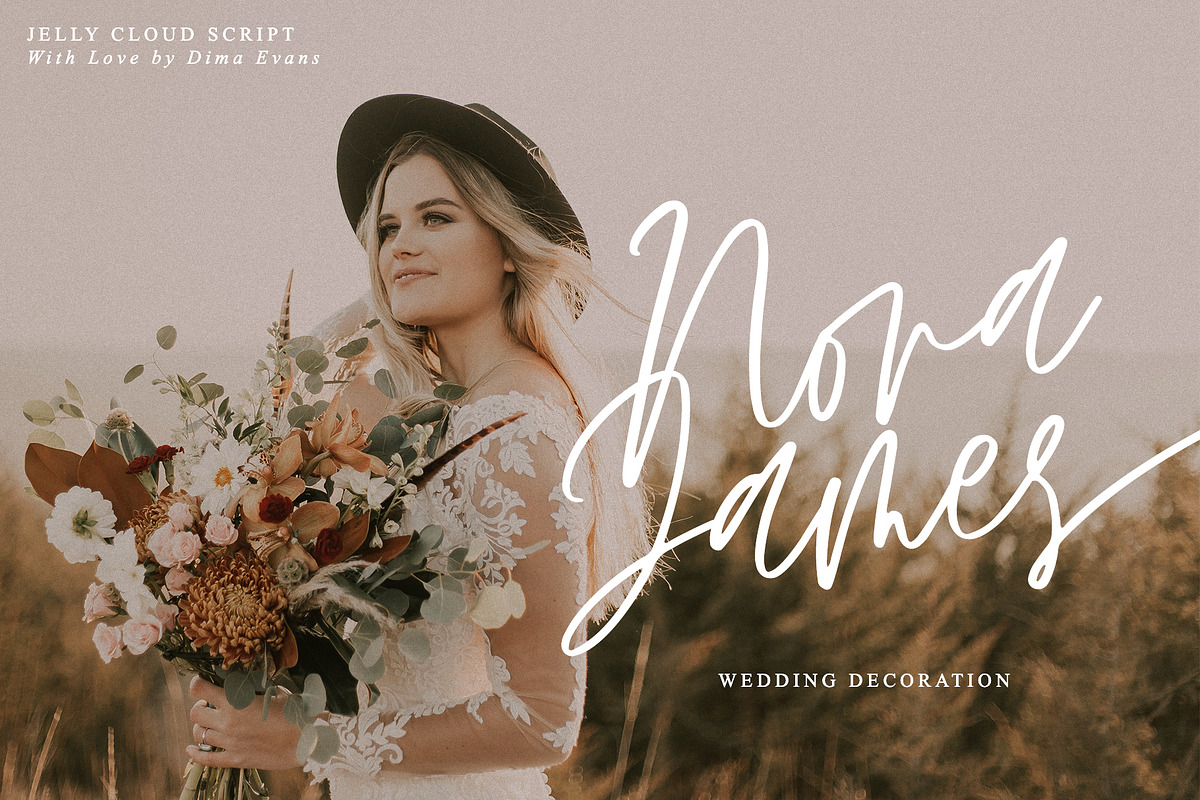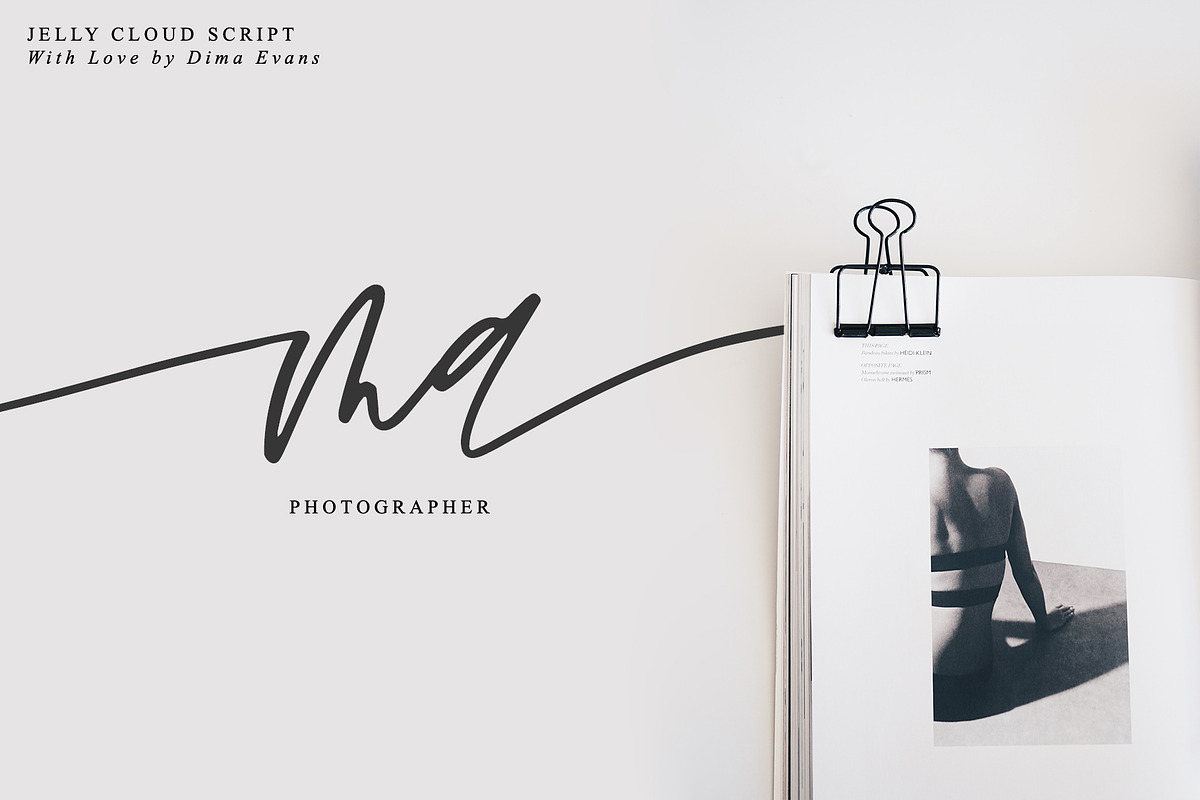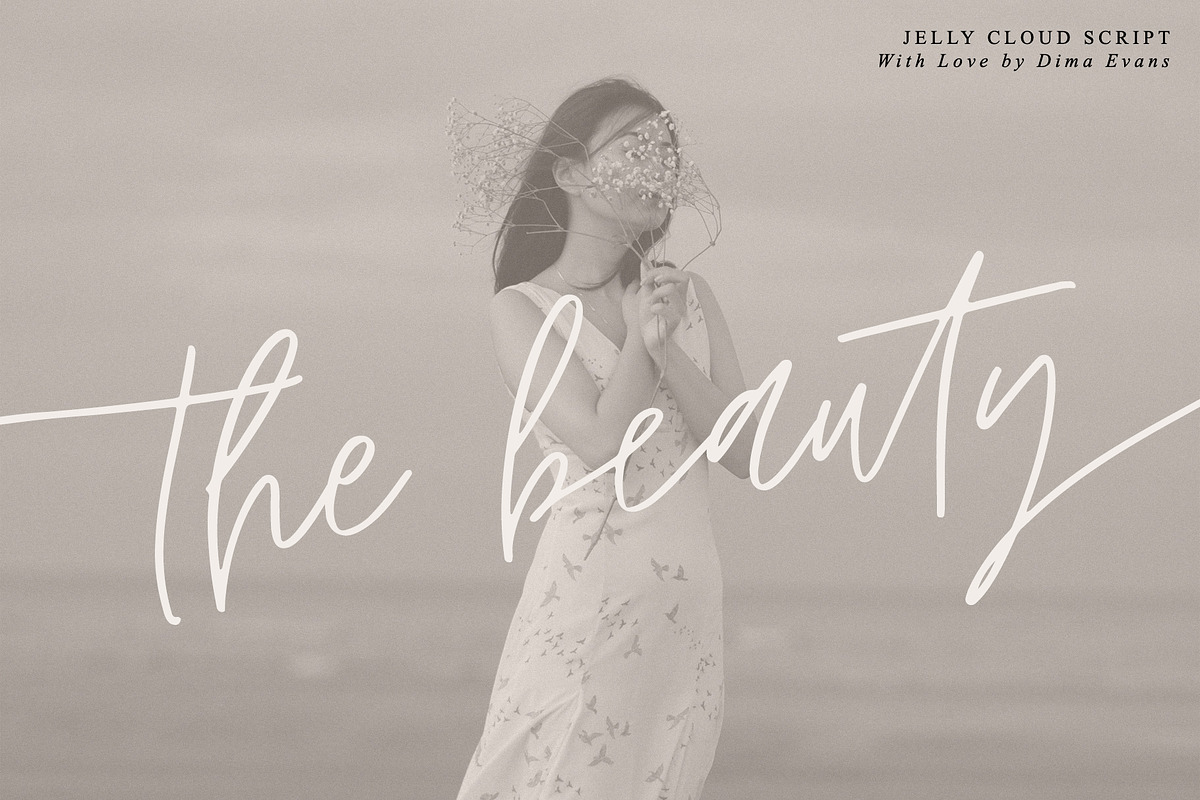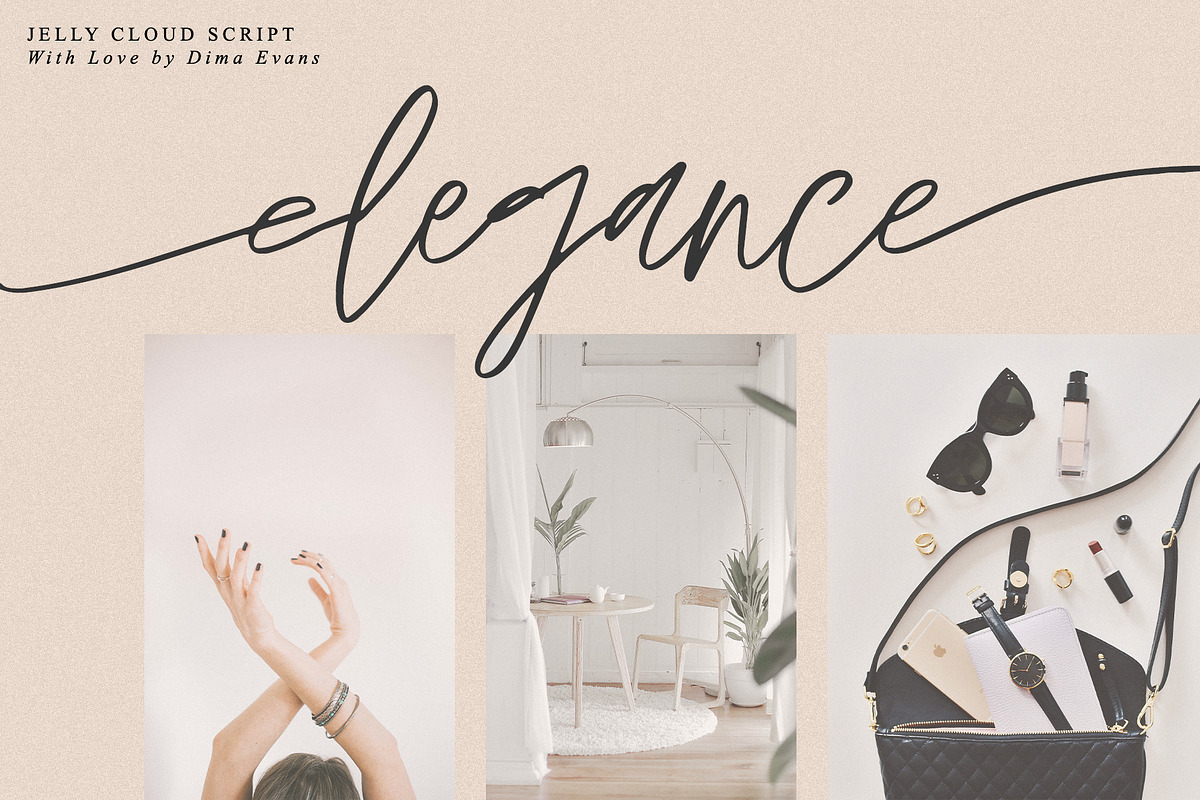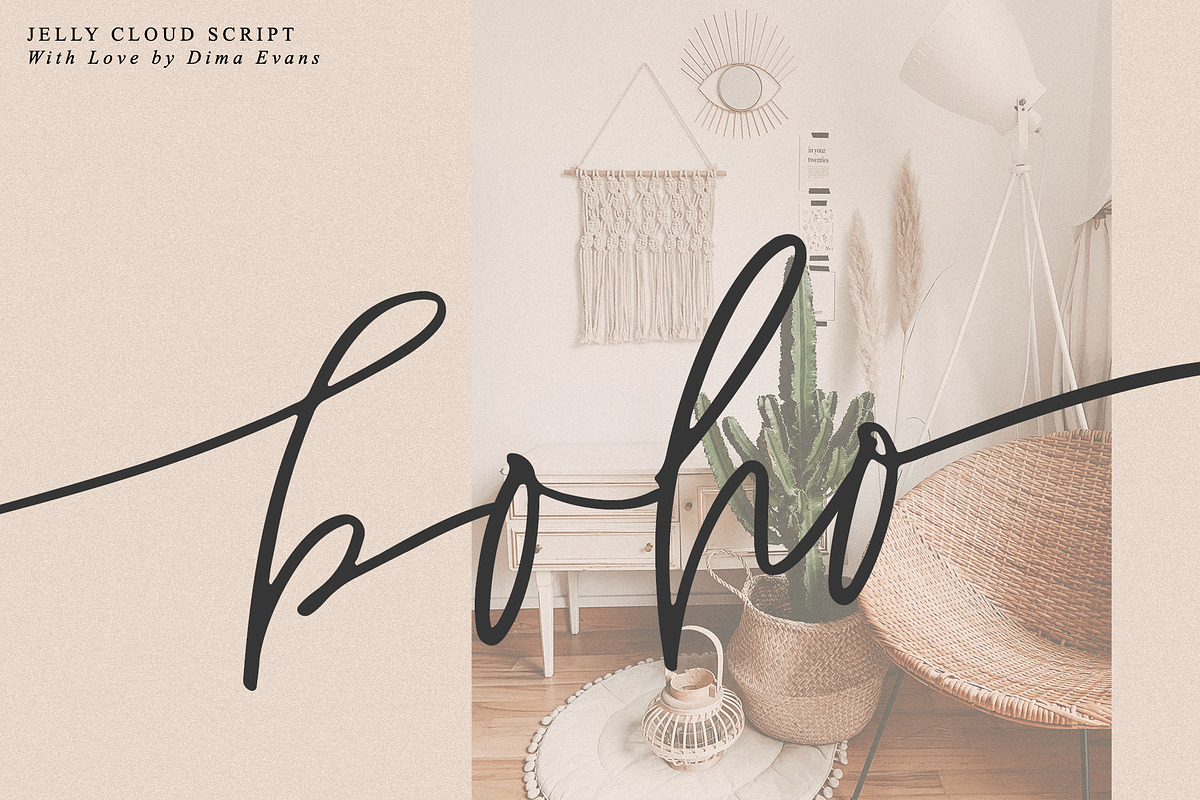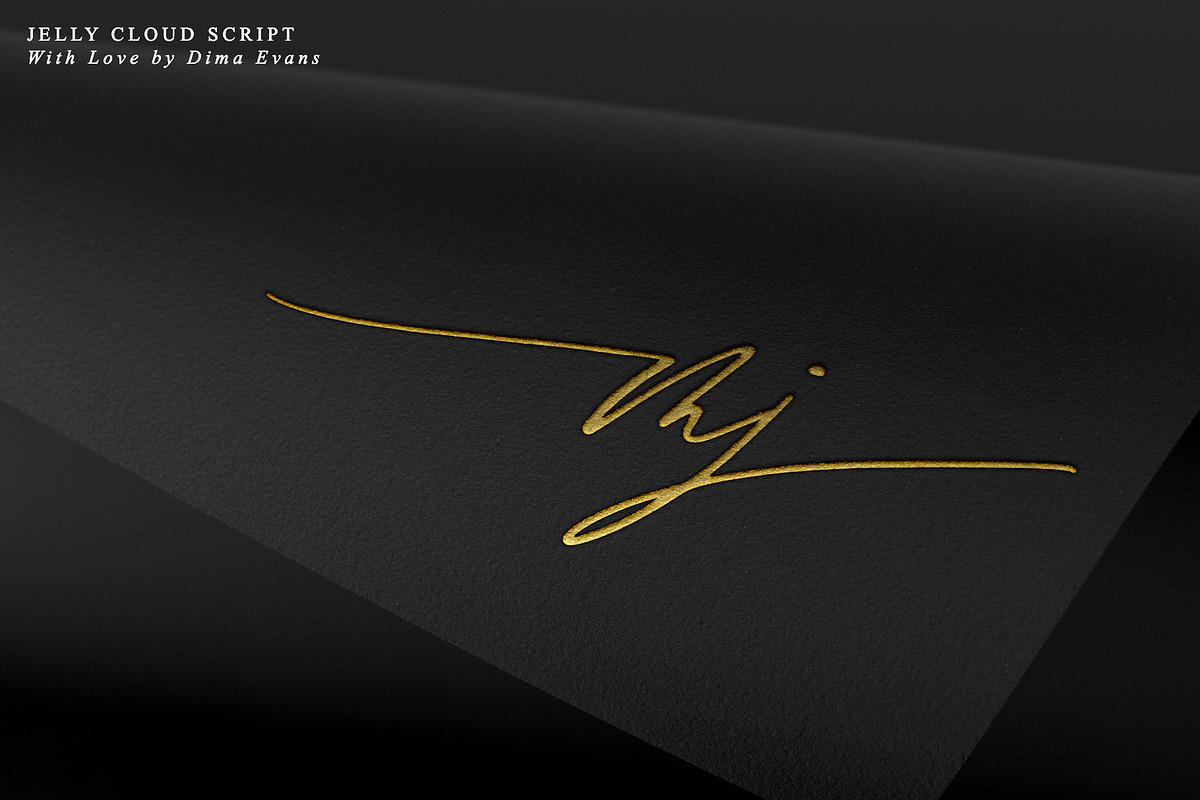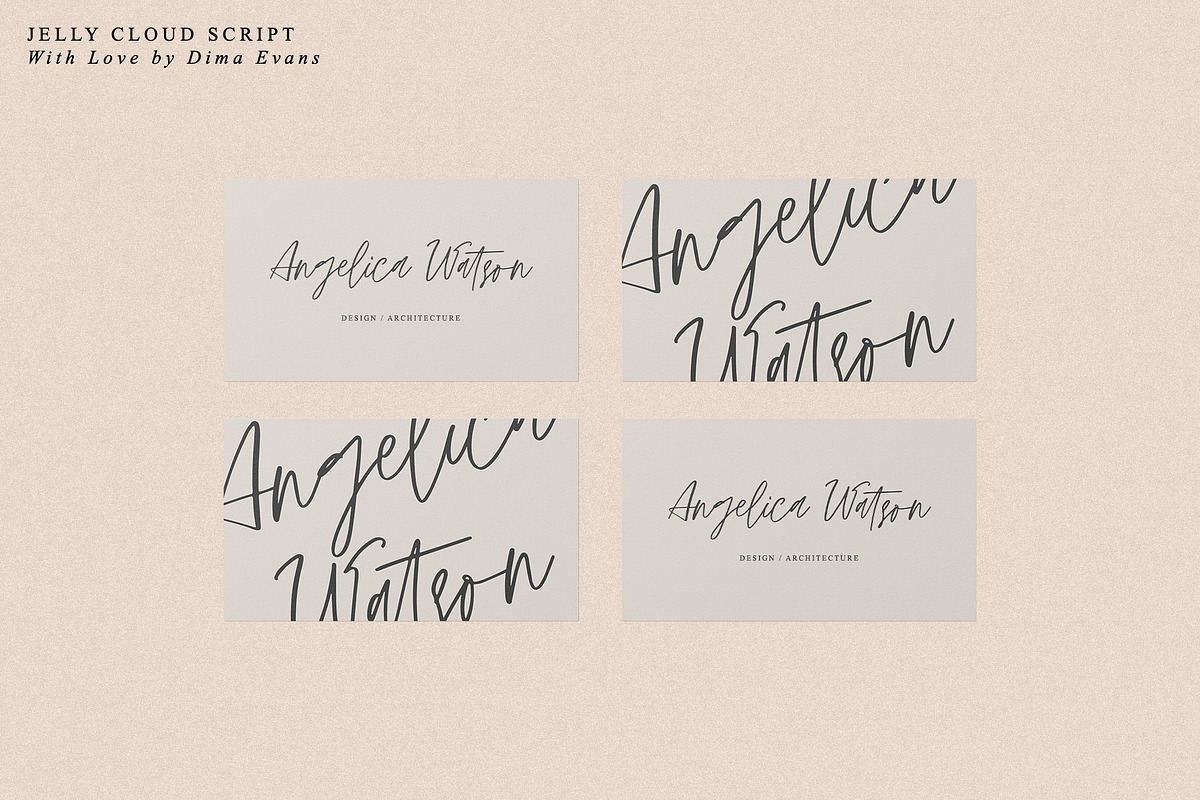
JellyCloud / Font with Swashes
JellyCloud it is a Lettering chick font with exquisite accents. It is perfect for branding, wedding invitations and invitation cards and many more
Font includes a full set of gorgeous uppercase and lowercase letters, numbers, a large selection of punctuation marks, ligatures
Latin languages support
Uppercase and lowercase
Numbers and punctuation